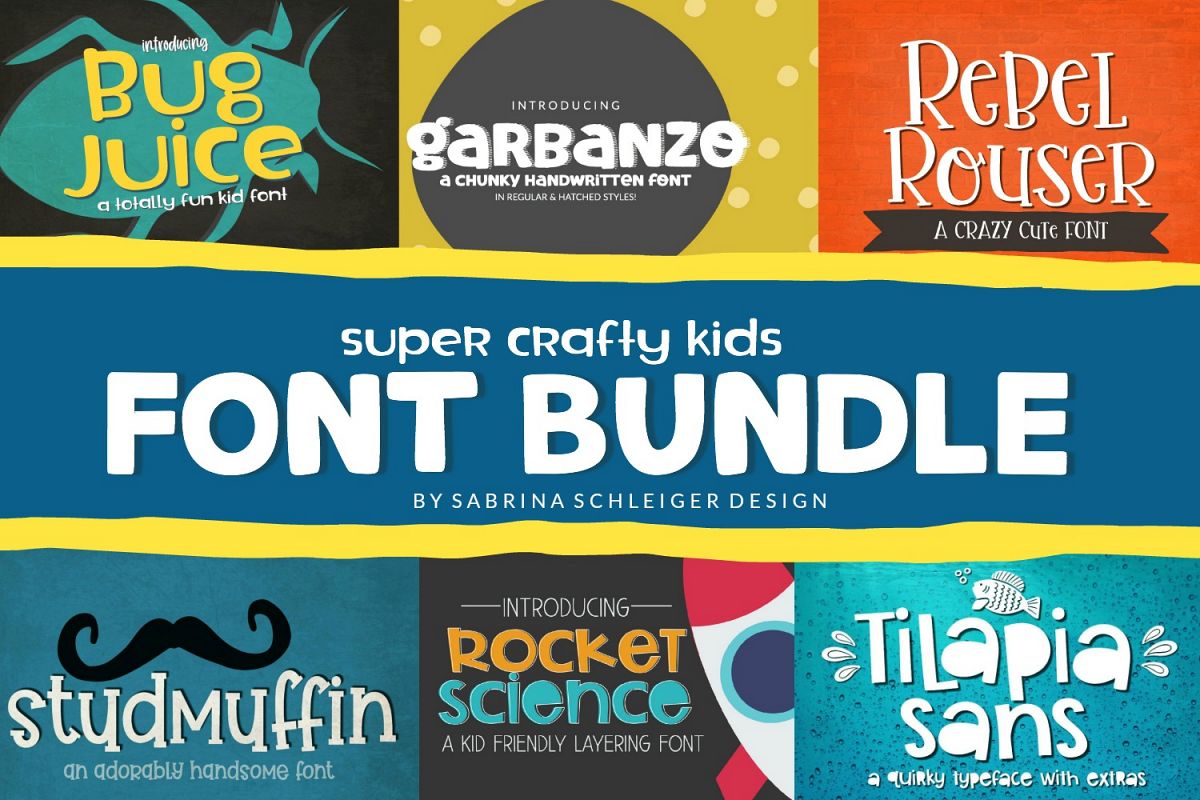
Font Bundle - Super Crafty Kids Cut Friendly Fonts
This bundle features six cut friendly fonts! Each font is optimized for cutting with Cricut and Silhouette!
SS Garbanzo
SS Rocket Science
SS Tilapia Sans
SS Rebel Rouser
SS Stud Muffin
SS Bug Juice